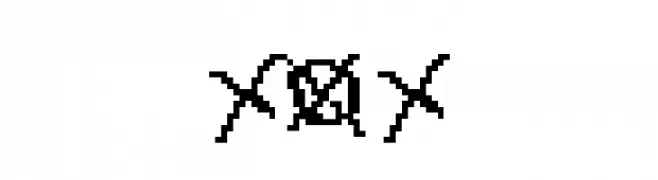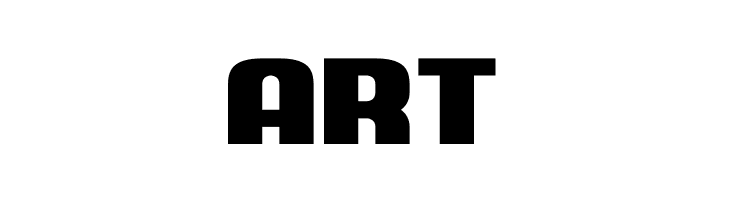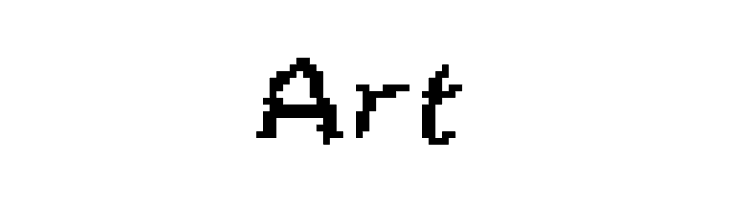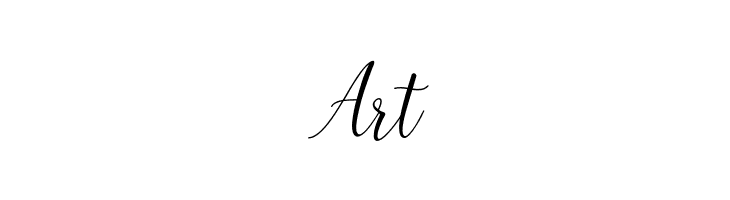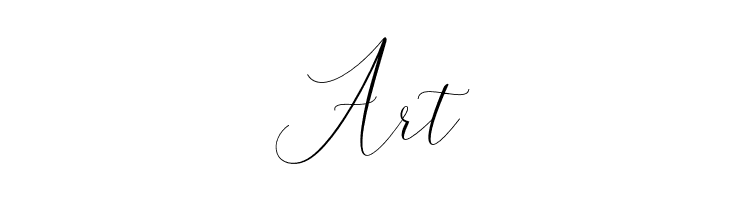
A bold, geometric typeface with a modern, industrial feel.
A tall, narrow font with sharp serifs and high contrast, blending modern and vintage styles.
A tall, narrow font with a modern and sleek design, featuring consistent stroke width and sharp angles.
A modern, geometric font with tall, narrow characters and a sleek design.
A bold, dynamic font with a playful and energetic style.
A pixelated, retro-style font with a tech-inspired aesthetic.
A graceful and sophisticated script font with flowing, interconnected letters.
An elegant script font with flowing, cursive letterforms and a sophisticated flair.
An elegant script font with flowing, cursive style and high contrast strokes.
A graceful script font with flowing, cursive strokes and elegant loops.